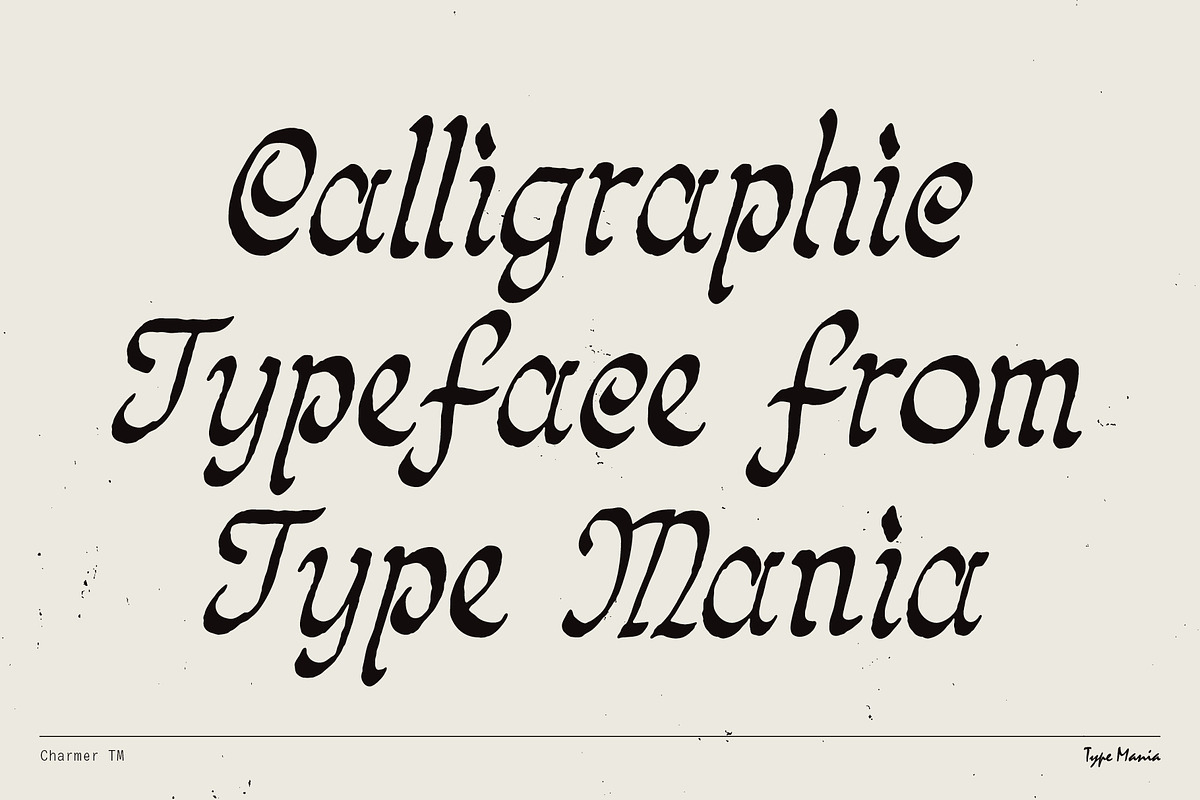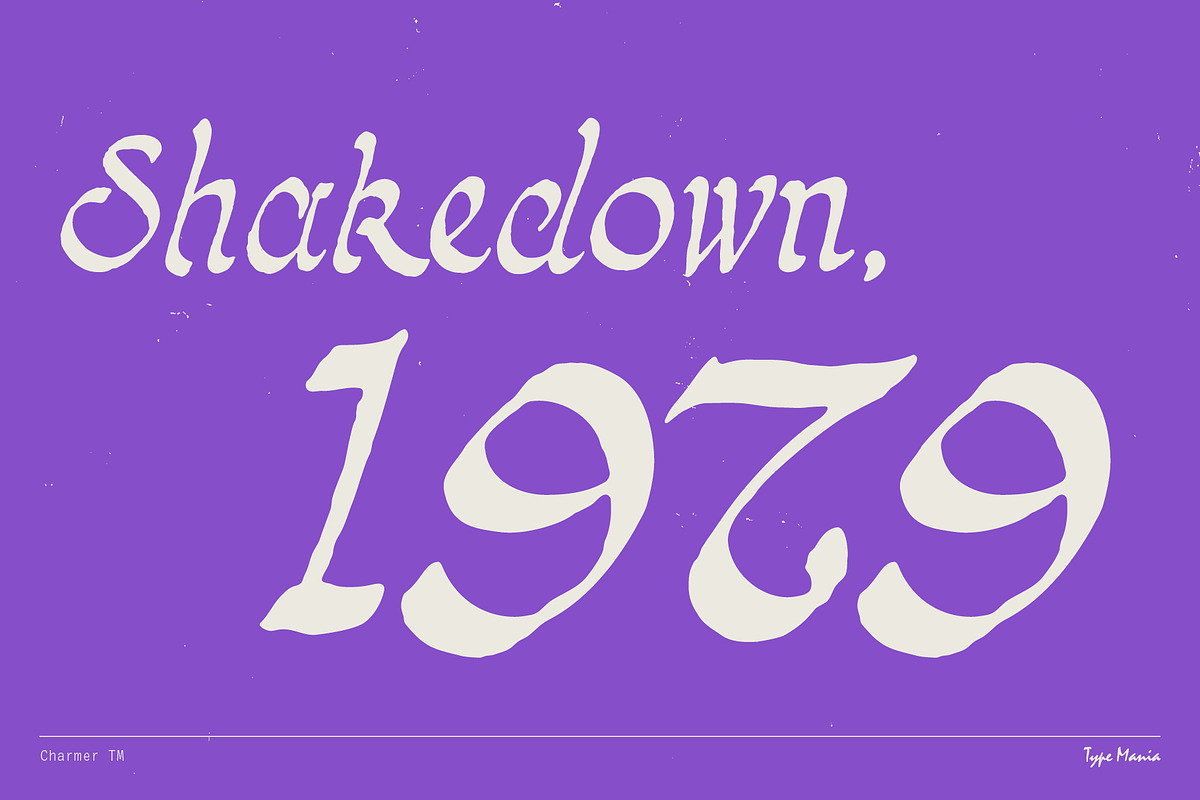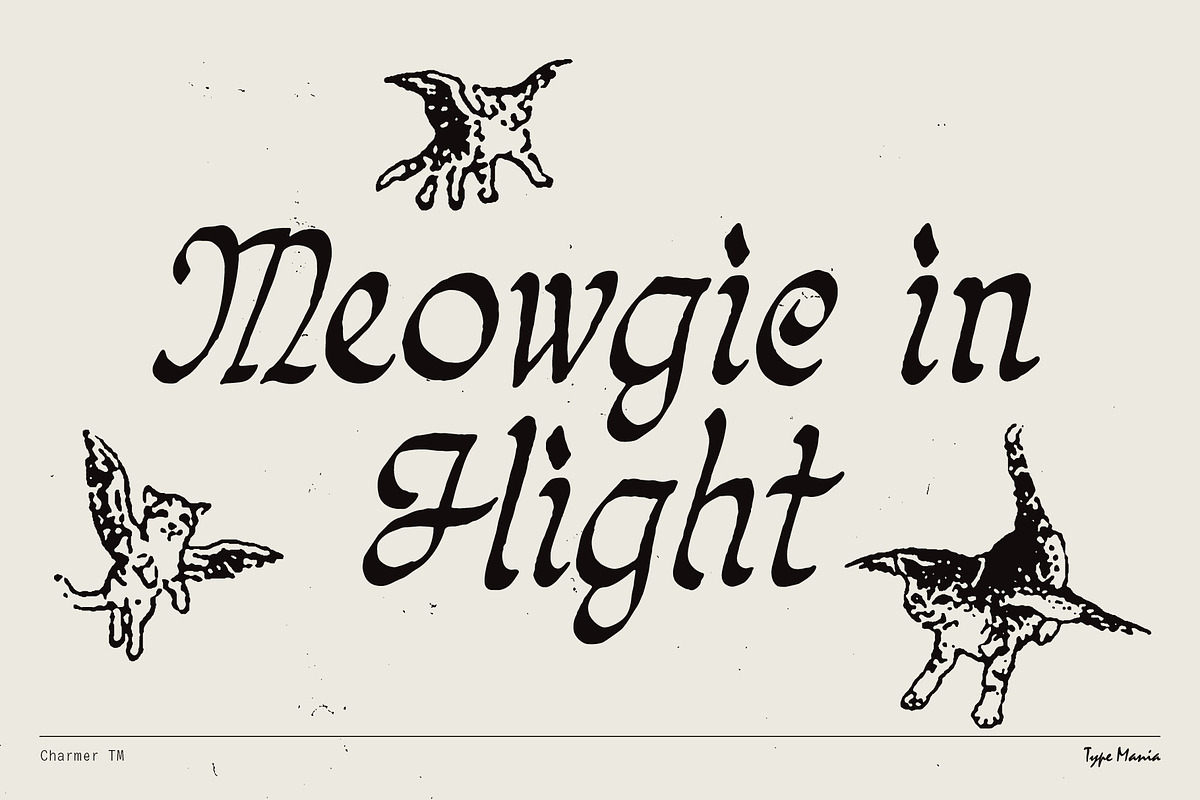
Charmer TM Font
Charmer TM Font is a homebaked calligraphic font with a personal feel. Good for your bedroom pop band just about to make it big.
Charmer TM Homebaked Calligraphy Font Preview
This preview highlights the unique shapes and multi-height variations of the Charmer TM Font.